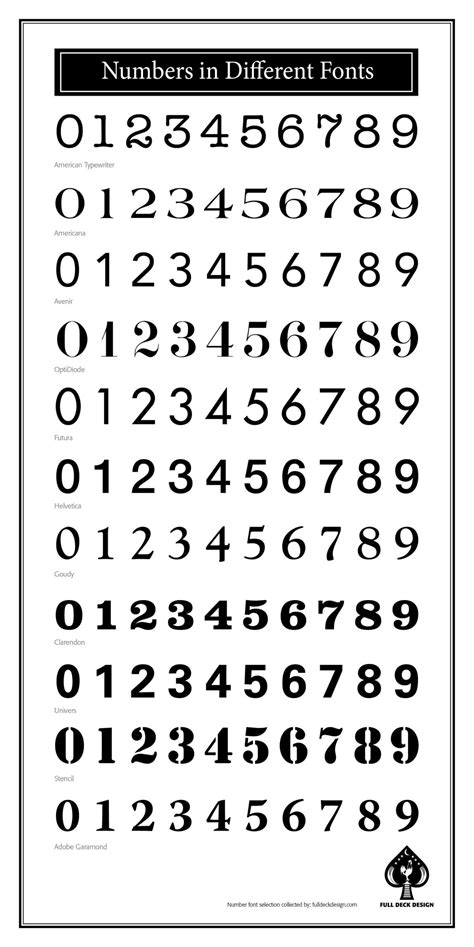
20 Best Number Fonts for Displaying Stylish Numbers
Numbers With Different Fonts. Web find the 40 best free and paid number fonts for stylish and functional numerals. 1 to 15 of 116 results.
20 Best Number Fonts for Displaying Stylish Numbers
Web finding the best number fonts is essential when you are creating a design that heavily relies on numerals. See guidelines on how to use numbers in your ui design. Arguably the most distinct number font in all of the web, the scourge typeface packs additional strokes in many of the 0 to 9 digits. Web best number fonts. It’s unique, sports sharp edges, and. We’ve included free versions as. 1 to 15 of 116 results. Web find the 40 best free and paid number fonts for stylish and functional numerals.
See guidelines on how to use numbers in your ui design. Arguably the most distinct number font in all of the web, the scourge typeface packs additional strokes in many of the 0 to 9 digits. We’ve included free versions as. 1 to 15 of 116 results. It’s unique, sports sharp edges, and. Web find the 40 best free and paid number fonts for stylish and functional numerals. Web best number fonts. See guidelines on how to use numbers in your ui design. Web finding the best number fonts is essential when you are creating a design that heavily relies on numerals.